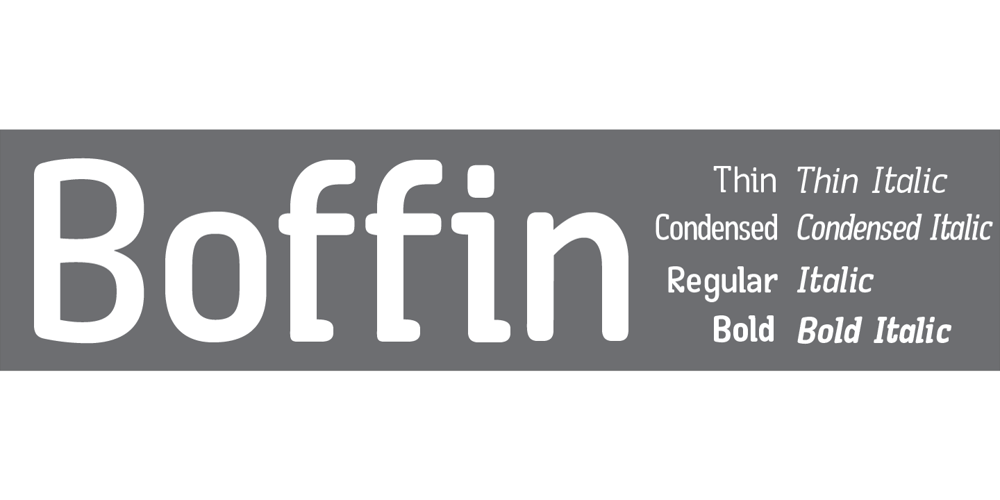
Boffin Font Family was designed by published by Evolutionfonts. Boffin contains 8 styles and family package options. A simple little typeface for all things technical. A faux monospaced, semi-serif with rounded corners that you will never forget. The name comes from a British slang word that means “tech-savy person”. Or simply “nerd”.